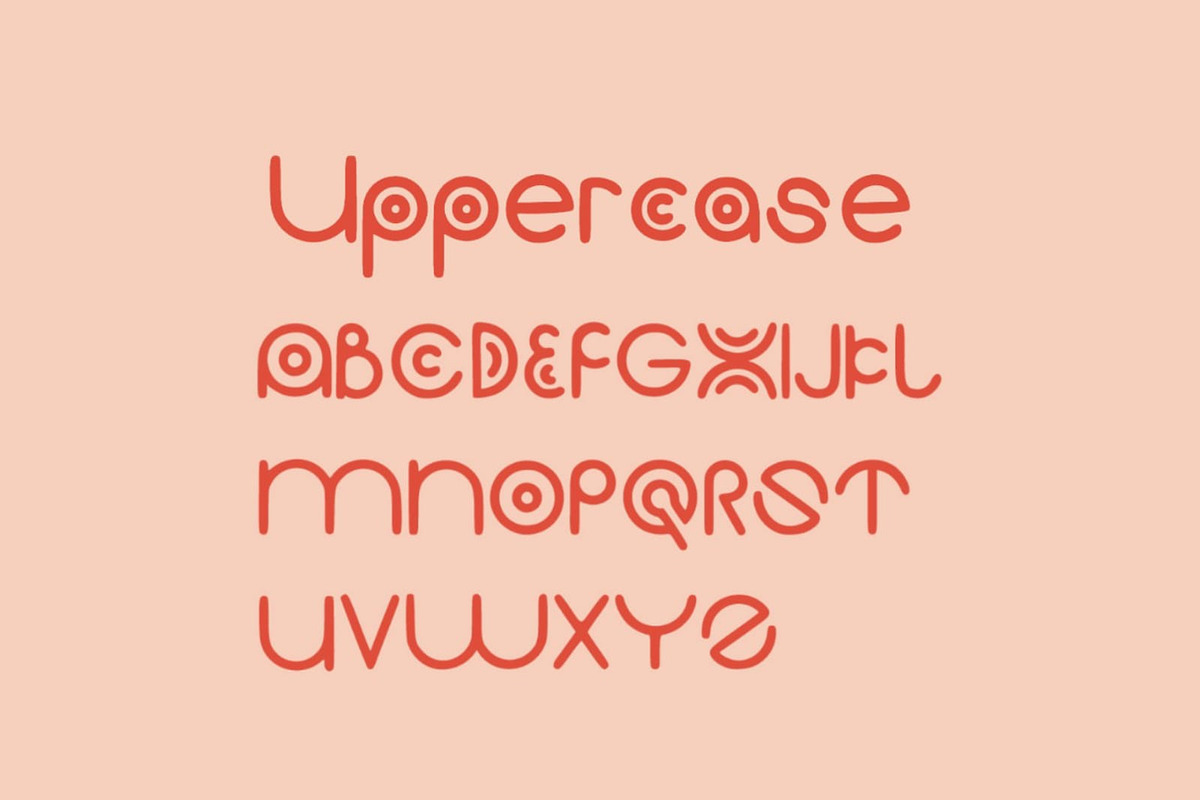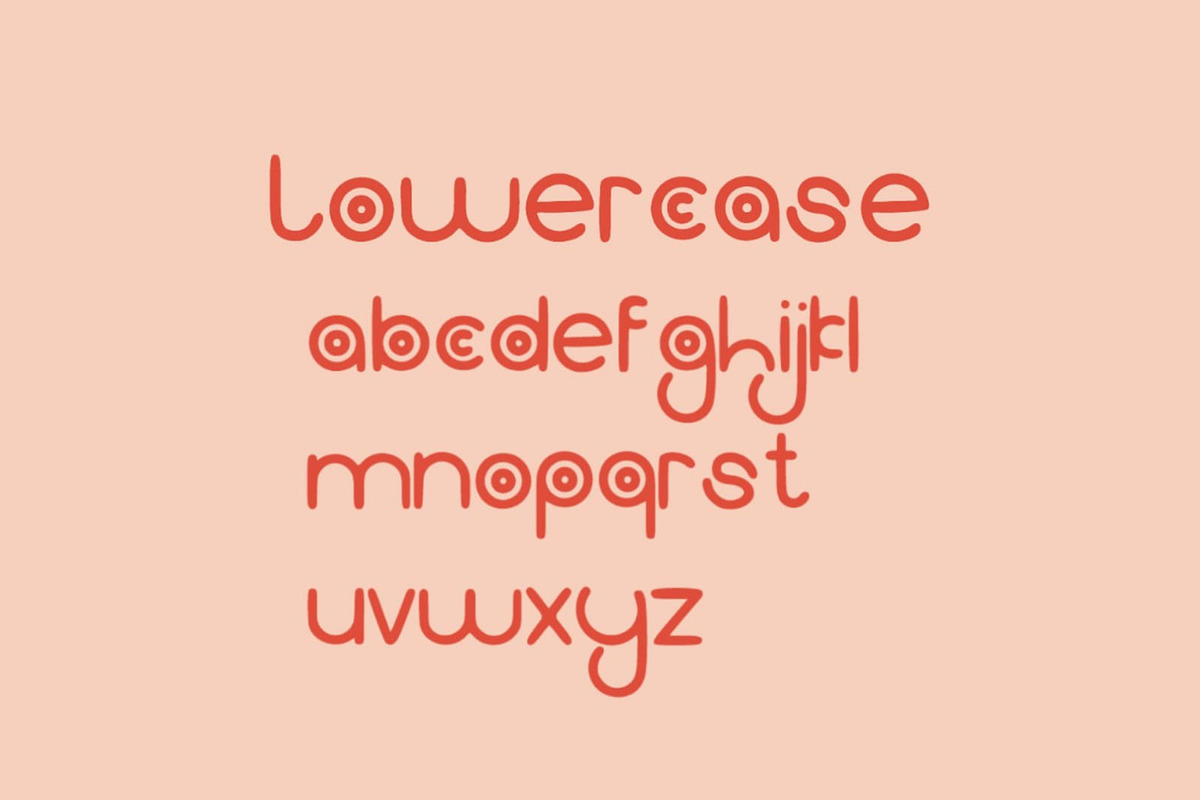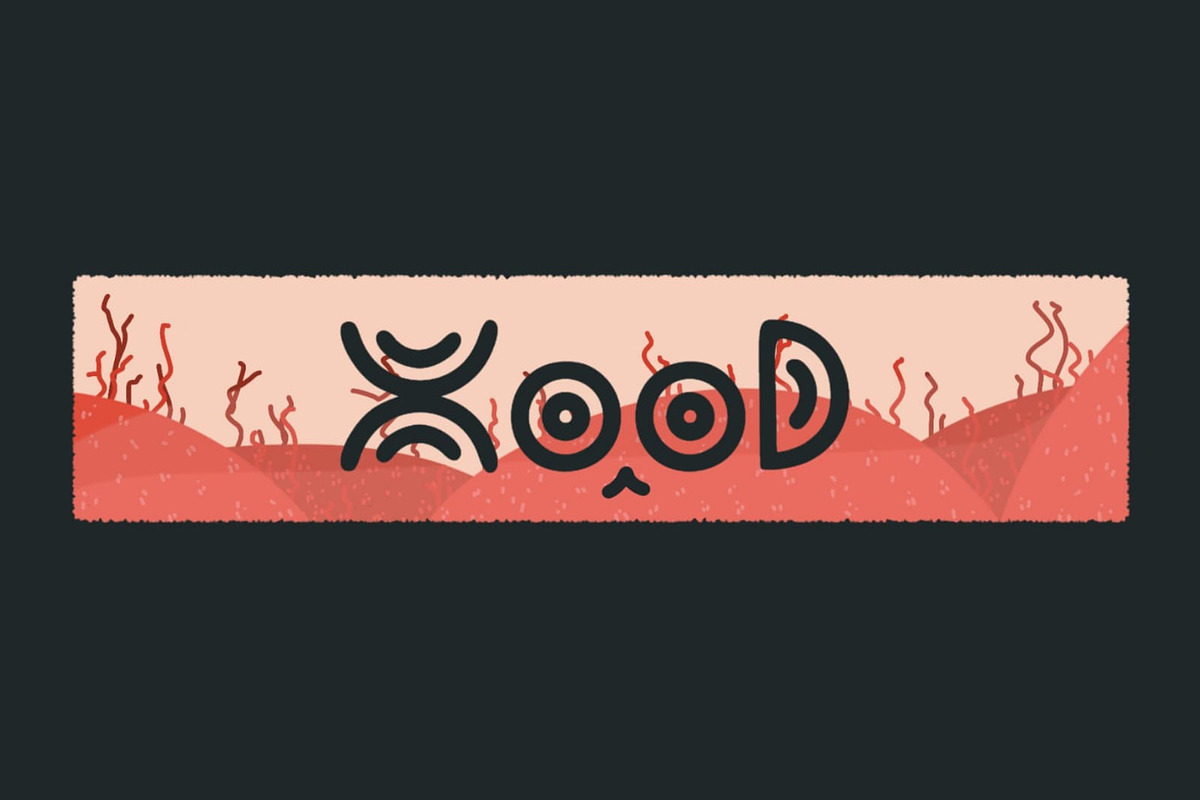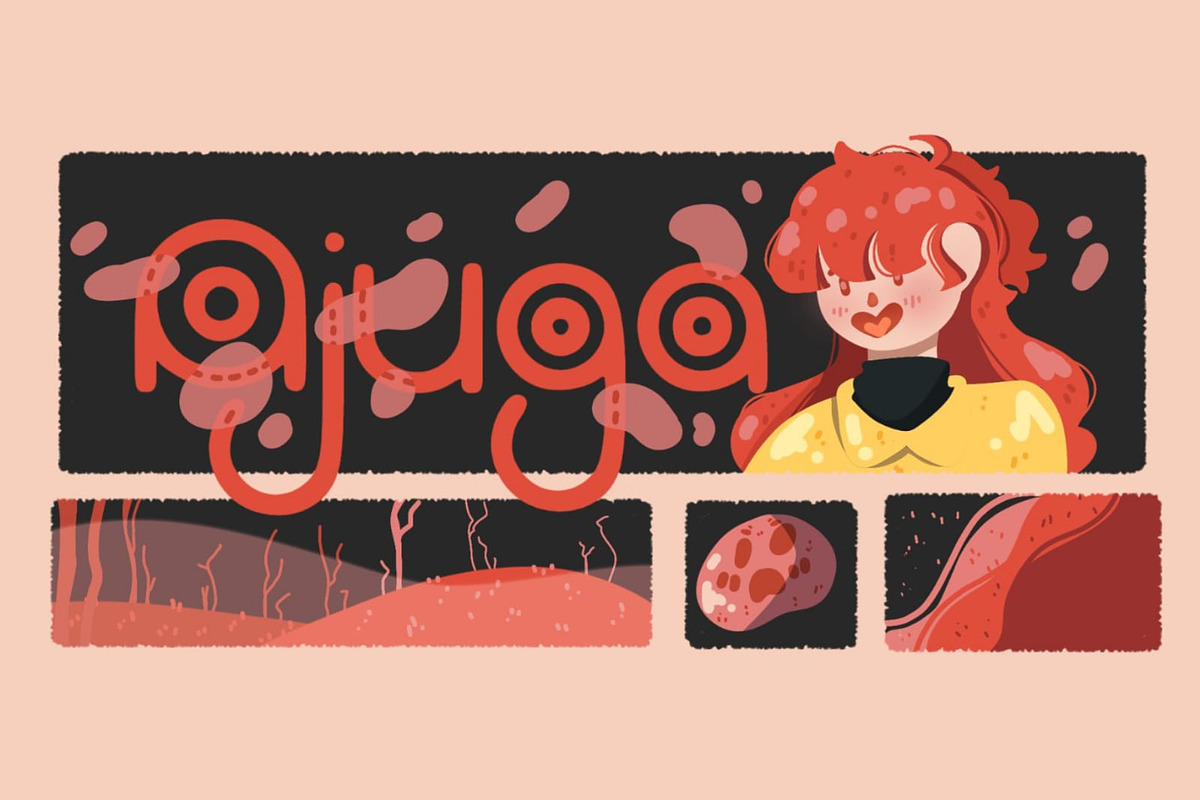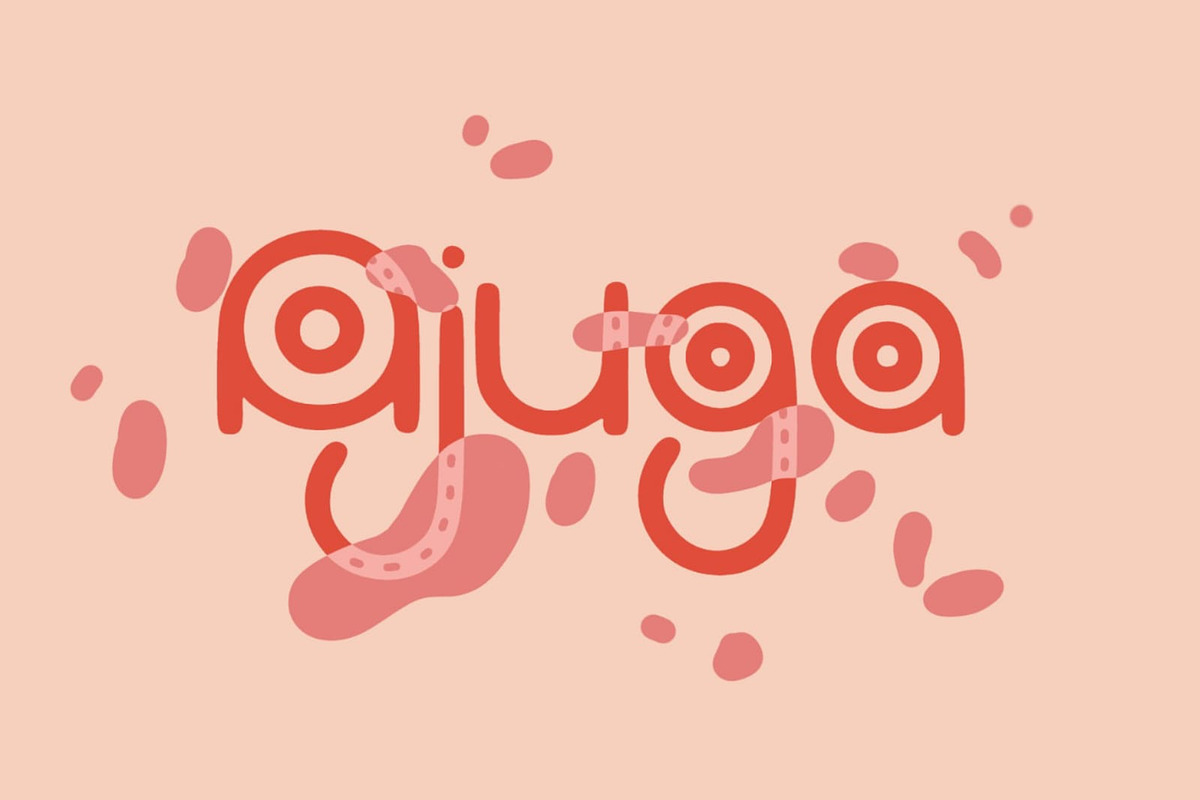
Ajuga
Ajuga - a typeface designed by Daily Studio. This is a geometric type font. with smooth and rounded egde. You can enjoy and play with the uppercase or lowercase to make it more entertaining. Perfect for header, poster, title, and cards. Ajuga contains full uppercase, lowercase, punctuation, and multilingual letters.